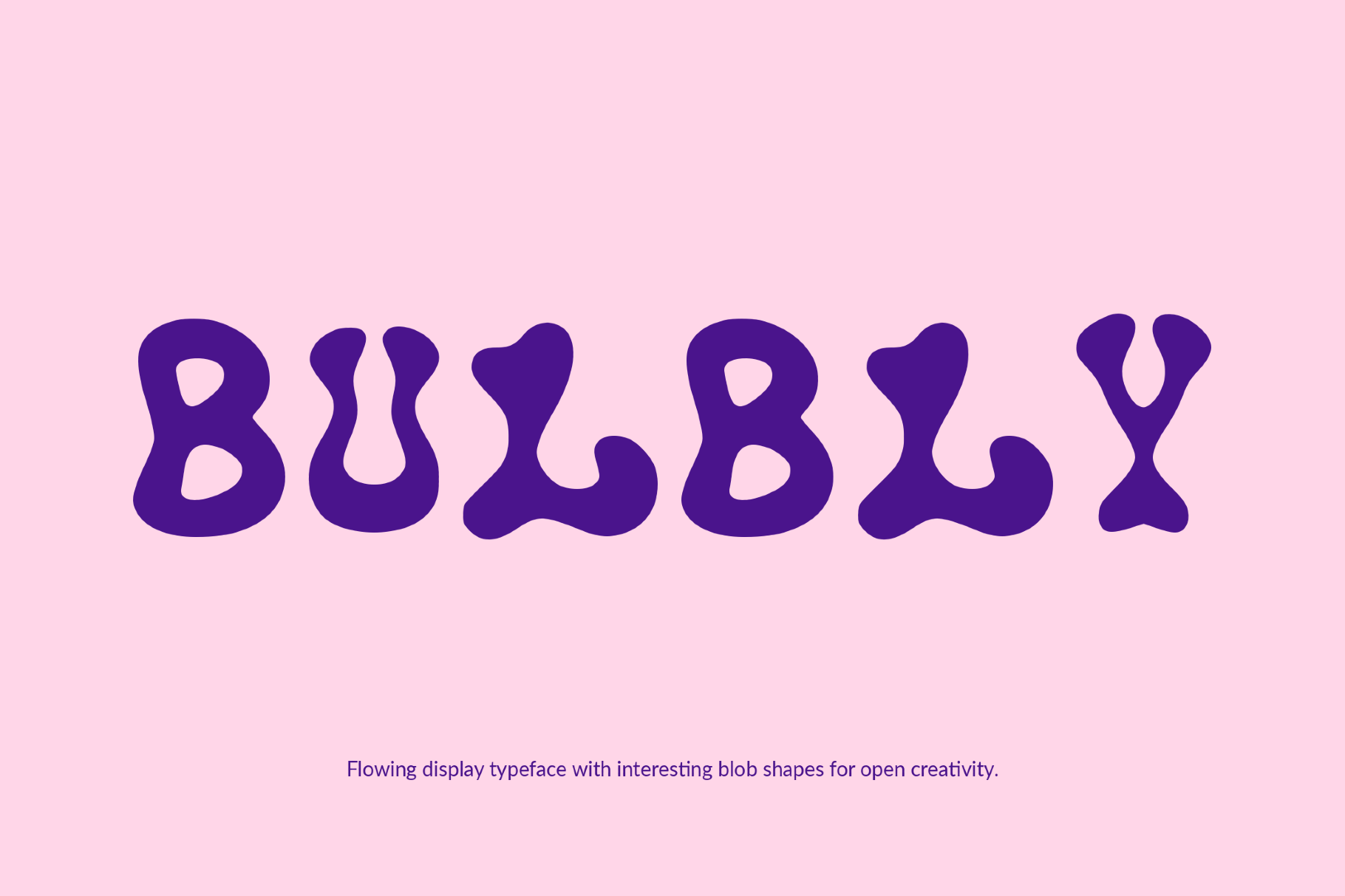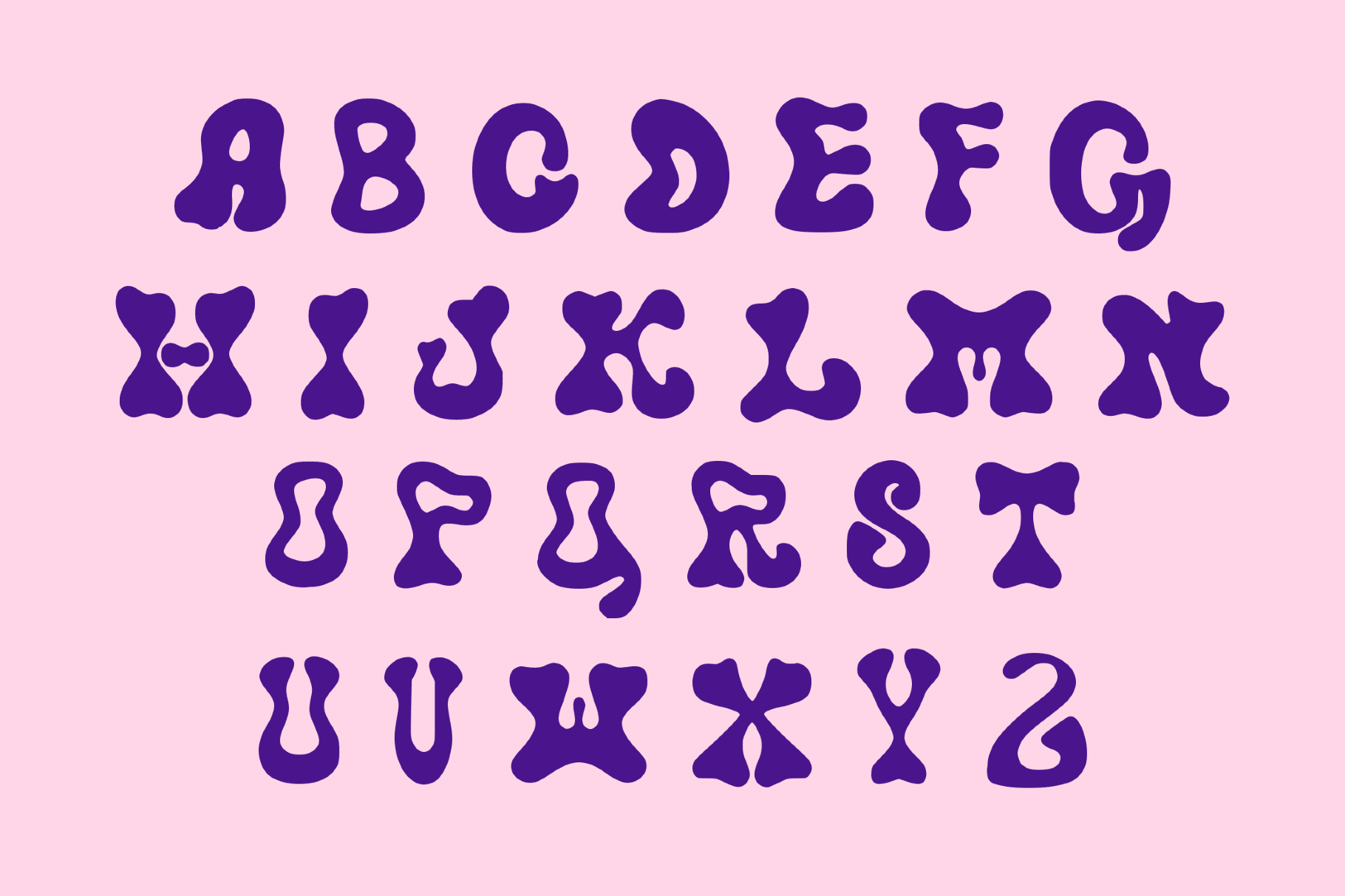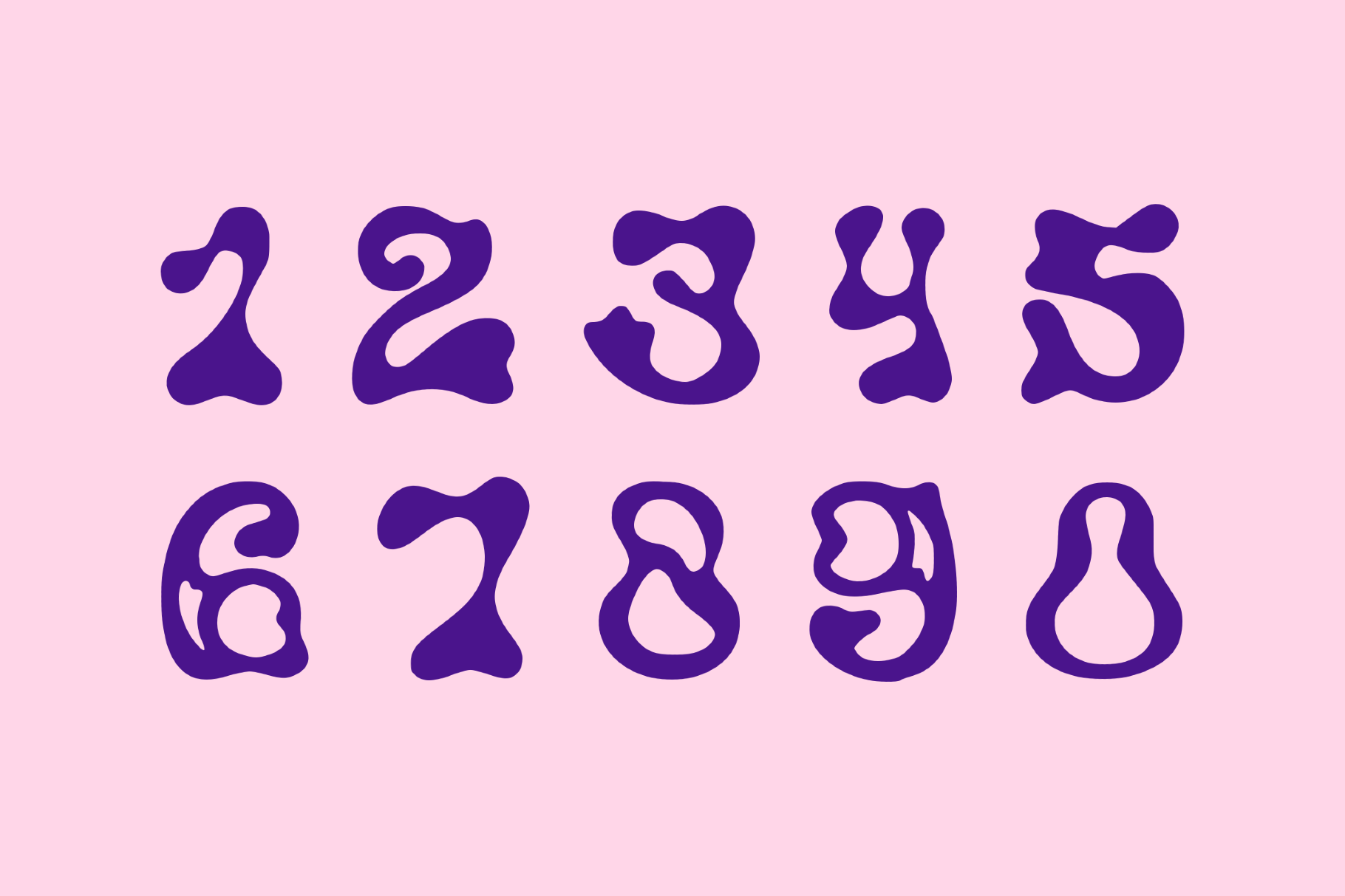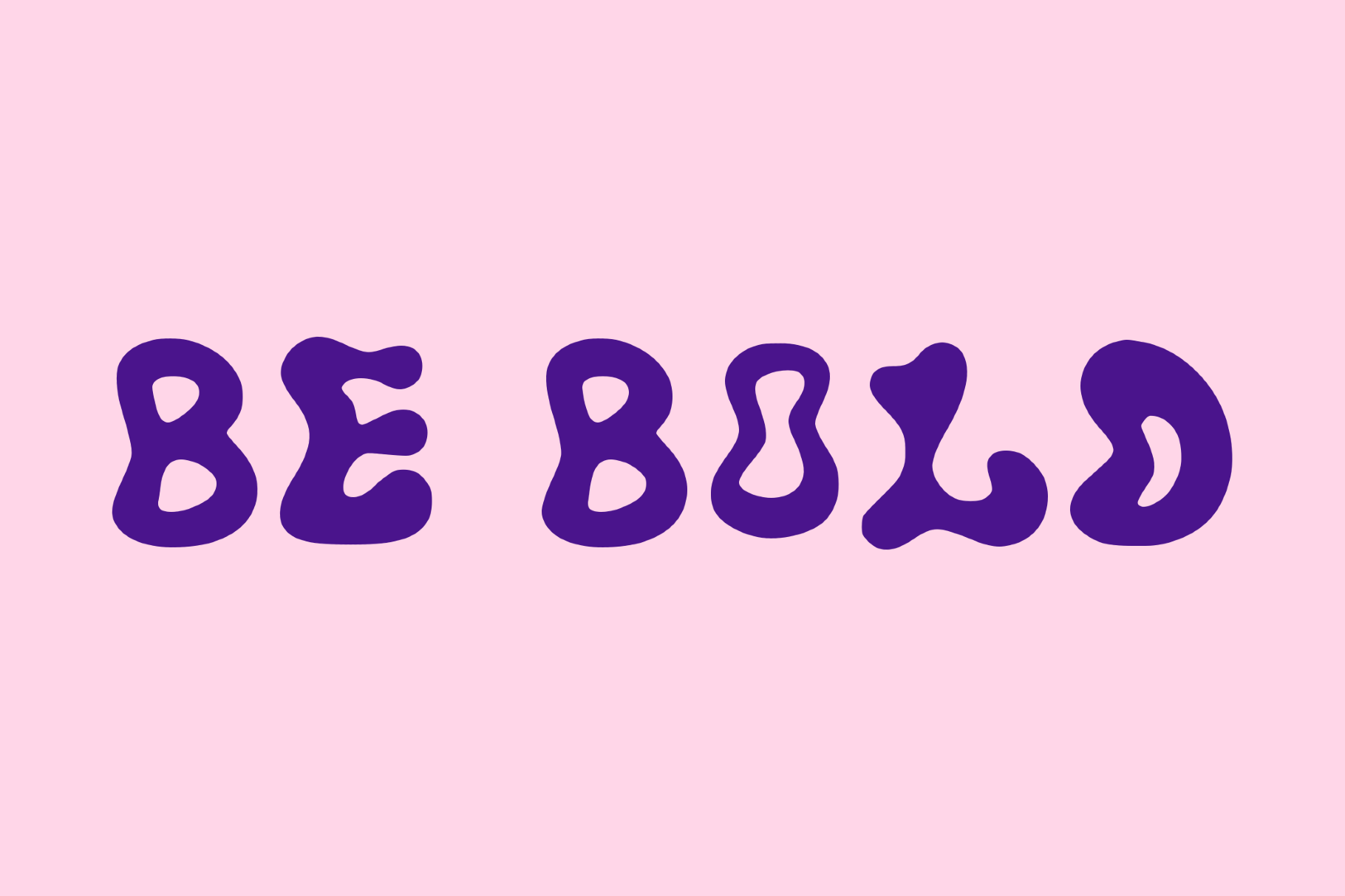
Bulby - Wavy All-Caps Font
Bulbly is a rounded wavy font with swelling, freeform curves that recall inflatable lettering, student poster experiments and the playful visual spirit of early digital art projects. This typeface works beautifully for poster headlines, youth branding, festival graphics, packaging, editorial covers, motion pieces and social posts.